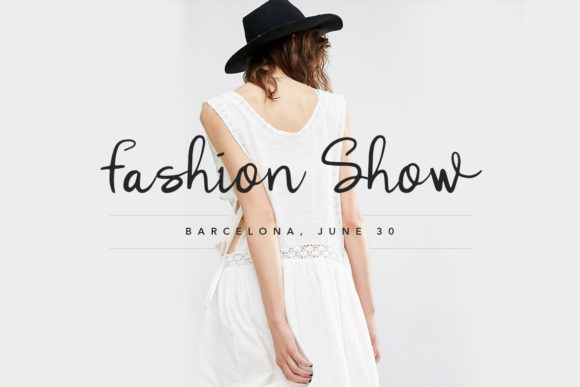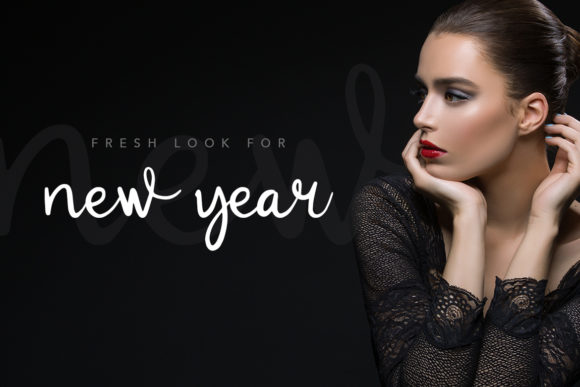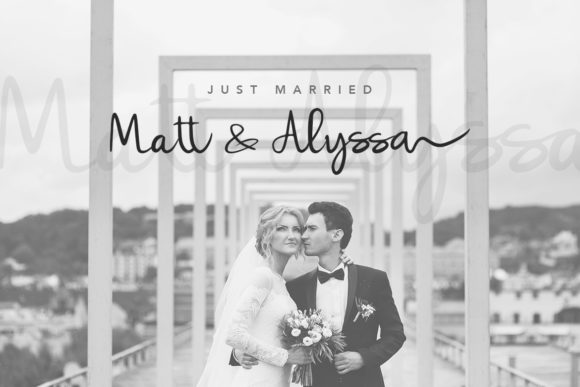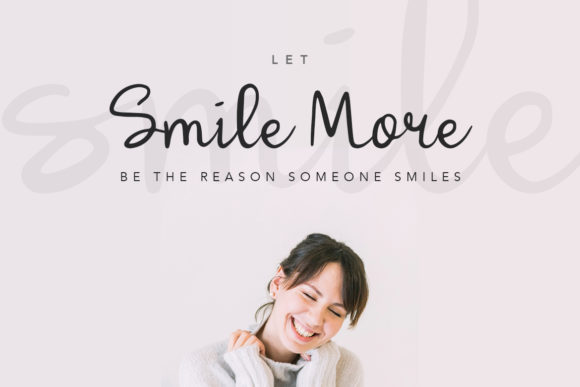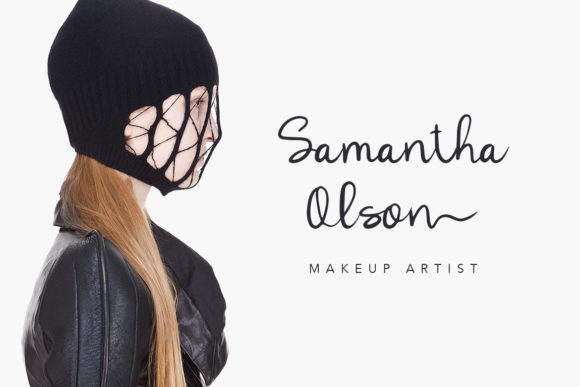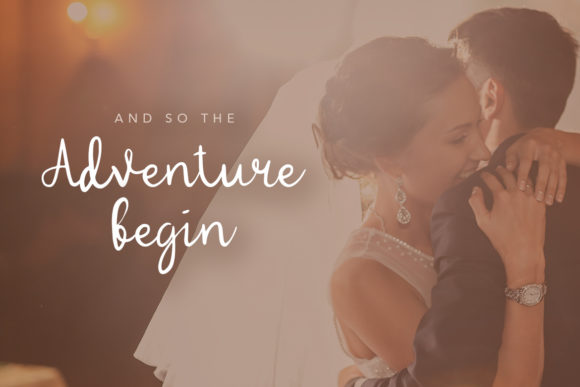
Introduction to Lulla Font
Have you ever found yourself staring at a blank page, trying to bring your creative project to life? The cursor blinks, taunting you to start, but the ideas just aren’t flowing. That’s when I stumbled upon the Lulla Font – a simple, yet adorable handwritten font with a romantic twist. Its beauty is undeniable, and I knew I had to share it with fellow designers and creatives.
The Lulla Font is a true standout, offering a unique touch to any design project. With its high quality and versatility, it’s the perfect design resource for anyone looking to add a personal touch to their work. Whether you’re working on a free download or a complex design project, the Lulla Font is sure to impress.
As a valuable resource for designers, the Lulla Font is a game-changer. Its transparent background and elegant script make it a must-have for any creative project. And the best part? It’s available for download, making it easily accessible to designers around the world.
Key Features of Lulla Font
- Designed with a focus on readability and aesthetics, ensuring it is suitable for a wide range of applications.
- Perfect for use in digital design, print media, and web development projects, due to its high-quality and versatile nature.
Honest Review: Lulla Font
I recently came across the Lulla Font, a free download that caught my eye for its unique design and versatility. As a designer, I’m always on the lookout for high-quality design resources to add some flair to my creative projects.
- ✨ The Lulla Font’s elegant script style makes it perfect for invitations, wedding designs, and other high-end creative projects.
- ✨ The font is available in a range of weights, from light to bold, allowing for a high degree of customization.
- ⚠️ The font may not be suitable for body text, as it can be a bit difficult to read in smaller sizes.
Overall, I’m impressed with the Lulla Font’s high quality and versatility. While it may have some limitations, it’s a great addition to any designer’s toolkit, especially for creative projects that require a touch of elegance and sophistication.
Lulla Font
Lulla Font is a high-quality design resource available for free download. With its transparent background and elegant style, it’s perfect for creative projects that require a touch of sophistication.
Tips for Getting the Most Out of Lulla Font
Use Lulla Font to create elegant and sophisticated designs. Experiment with different font sizes and styles to find the perfect combination for your creative project.
Lulla Font is perfect for wedding invitations, baby announcements, and other creative projects that require a touch of elegance. It’s also great for branding and logo design.